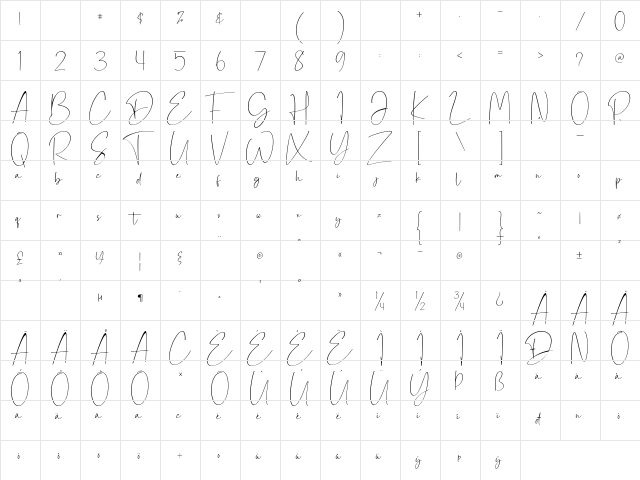
La Estroma Regular
Design Context for La Estroma Typeface
La Estroma is a composed and adaptable typeface that performs quietly and consistently across a wide range of design contexts.